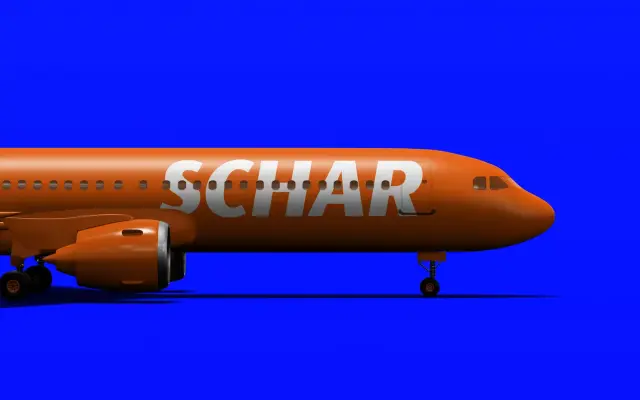
A humanist sans with serif-like rhythm and an angled axis, offered in eight weights with true italics and extensive OpenType support.
Schar 2.0 draws its structure from humanist serif proportions while dispensing with the serifs themselves, producing a sans with fluid curves and a dynamic angled axis. The 16-font family covers eight weights from Thin to Black with true italics, over 1,000 characters, true small caps, and thirteen number styles ranging from tabular to circled figures. Alternative glyphs for a, e, g, y and l, plus ligatures and a full OpenType feature set, give it enough flexibility for branding, editorial and interface work.
The foundry explicitly classifies Schar as a humanist sans serif, noting its angled axis and the balance and rhythm associated with serif design stripped back for contemporary use.